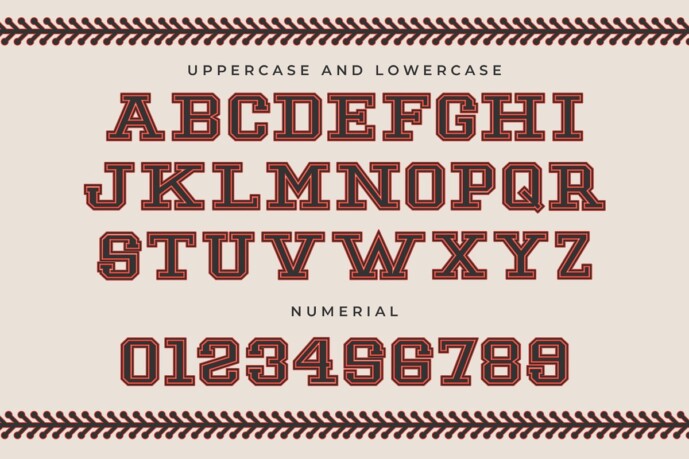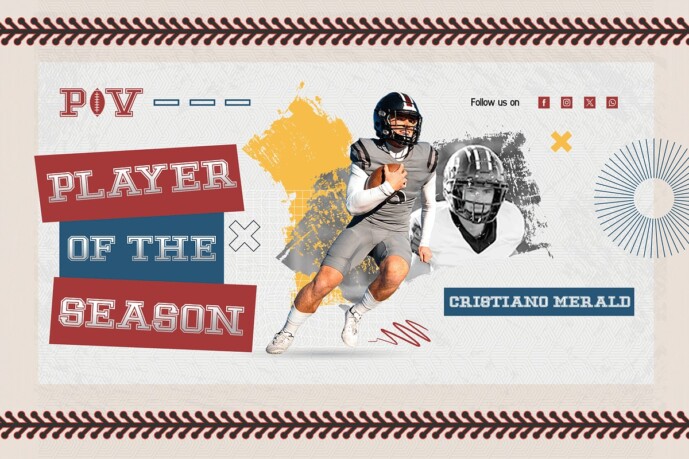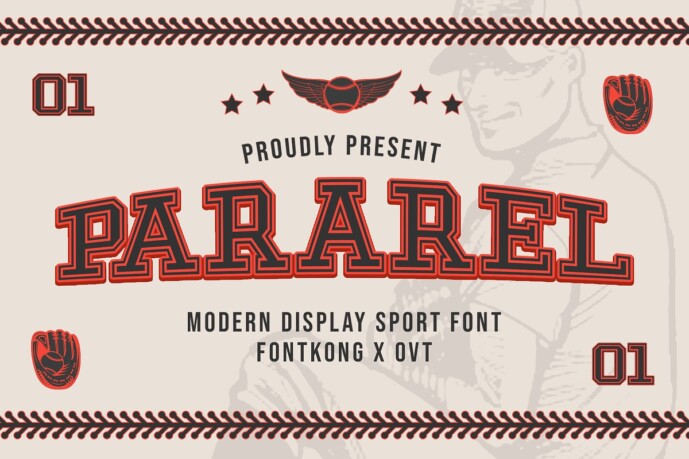
Pararel Font
Pararel Font, a cutting-edge display sport font designed to inject energy and motion into your athletic and sports-related projects. With its sleek, modern design, Pararel is perfect for sports branding, team jerseys, event posters, and promotional materials that demand a bold and dynamic presence.
Pararel features sharp, clean lines and a contemporary aesthetic that embodies speed and agility. Its distinctive style makes it ideal for creating eye-catching headlines, impactful logos, and vibrant graphics that resonate with sports enthusiasts. Whether you’re designing for a professional team, a fitness brand, or a sports event, Pararel brings a sense of action and excitement to your work.
This font includes a complete set of uppercase and lowercase letters, numerals, punctuation, and multilingual support, providing all the versatility you need to make your designs stand out. Pararel’s powerful and modern look ensures that your projects convey strength, performance, and a competitive edge.